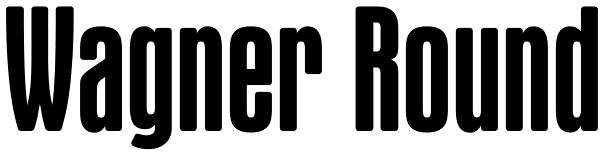
Wagner Round
This is the rounded, softer version of Canada Type's popular Wagner Grotesk. Originally done in 2011 for a global publisher, this font has already seen plenty of magazine and book cover action, perhaps even more than the sharp condensed face that...